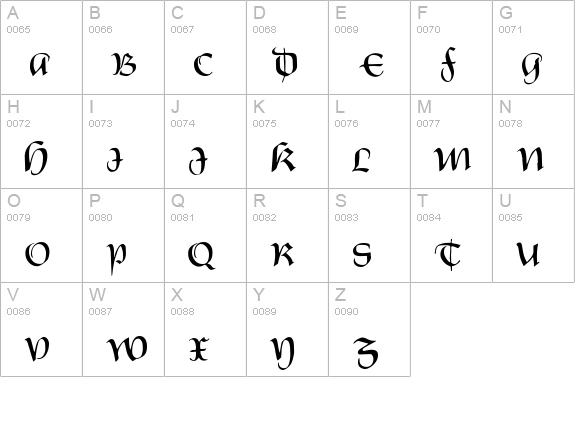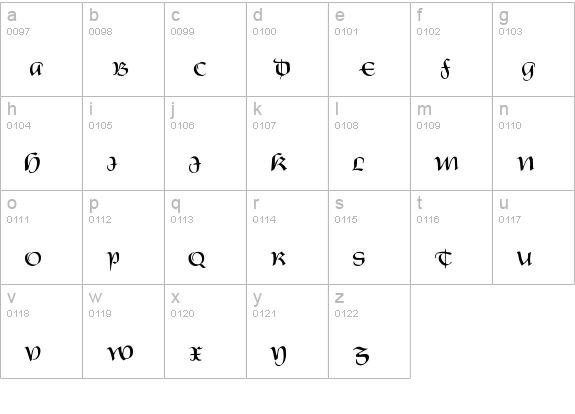
Perucia Old Normal Font Details
Perucia Old Normal is the standard, neutral variant in the Perucia typeface family \xE2\x80\x94 well suited to general body text, paragraphs, and standard typographic work.
Perucia Old Normal font effortlessly combines vintage charm with a timeless appeal. This stunning typeface captures the essence of classic letterforms, showcasing elegant and graceful curves that harken back to a bygone era. With its meticulously crafted details and refined strokes, Perucia Old Normal font exudes sophistication and sophistication. Perfect for a wide range of design projects, from invitations and logos to branding materials and editorial layouts, Perucia Old Normal font adds a touch of elegance and nostalgia. Its versatile nature allows it to effortlessly adapt to both modern and traditional aesthetics, making it a go-to choice for designers looking to make a statement. What sets Perucia Old Normal font apart is its accessibility. It is freely available to download at FontsMarket.com, making it a valuable resource for designers and creatives looking to add a touch of vintage flair to their work without breaking the bank. With its seamless integration into various design software and platforms, Perucia Old Normal font ensures a smooth and hassle-free experience. Embrace the beauty of the past with Perucia Old Normal font and let its timeless appeal elevate your designs to new heights. Whether you're aiming for a classic and refined look or a touch of nostalgic charm, this font is sure to captivate and inspire. Download Perucia Old Normal font today from FontsMarket.com and unlock the possibilities of free, high-quality typography.